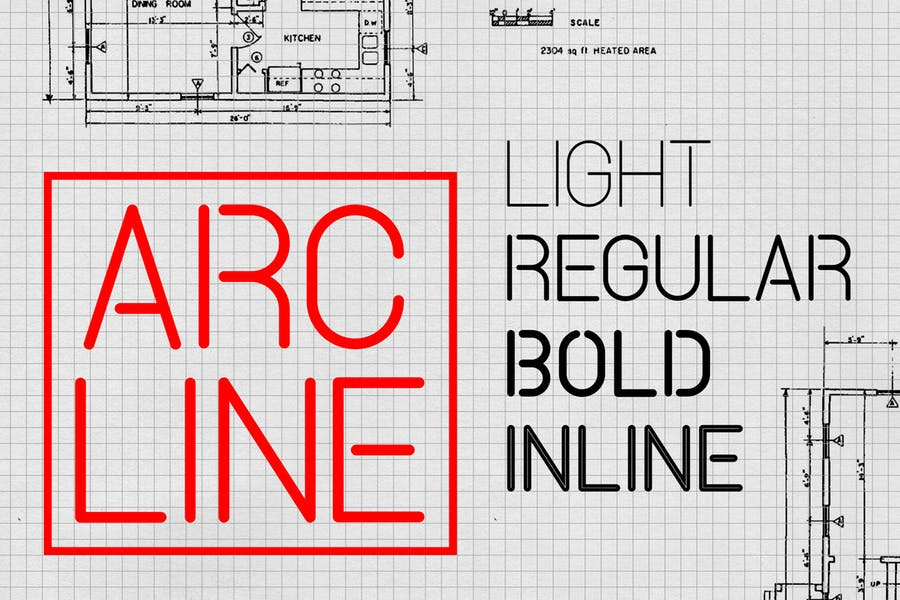
Arcline Font
Arcline Font is perfectly suited for architectural firm branding, technical drawing annotations, engineering documentation, structural design presentations, construction company logos, geometric art projects, modern signage systems, CAD software interfaces, and precise technical communications.
What makes Arcline Font so exciting is its exceptional geometric precision and architectural sophistication that perfectly embodies the principles of structural design and engineering excellence in every meticulously constructed letterform. This remarkable typeface captures the essence of architectural drafting with its clean lines and mathematical proportions that evoke the clarity and precision of technical drawings and blueprint specifications. The font's structured character shapes and exact angles create an atmosphere of professional accuracy and technical authority that resonates with architects, engineers, and design professionals who value precision and functional beauty. Arcline Font stands out through its ability to convey technical expertise, structural integrity, and architectural sophistication, making it perfect for projects that need to establish engineering credibility while communicating with audiences who appreciate the intersection of function and form in technical design.
The Arcline Font family includes Light, Regular, Medium, and Bold weights, each maintaining the font's distinctive geometric character while providing design flexibility for various technical applications. The family also features precise alternates and technical symbols that enhance the font's architectural appeal and provide comprehensive solutions for professional engineering design projects.
The technical excellence of Arcline Font includes a comprehensive character set with uppercase and lowercase letters, numerals, punctuation marks, and technical symbols that maintain the font's geometric precision. The font has been meticulously engineered to ensure perfect alignment and mathematical accuracy across both digital and print applications while preserving the structural details that give it its distinctive architectural character and professional appeal.
Whether you're designing architectural presentations, creating engineering documentation, developing technical brand identities, or crafting designs that require geometric precision and structural sophistication, Arcline Font delivers the perfect combination of technical accuracy and contemporary functionality that makes your projects professionally compelling and visually precise for audiences seeking excellence in architectural and engineering design.